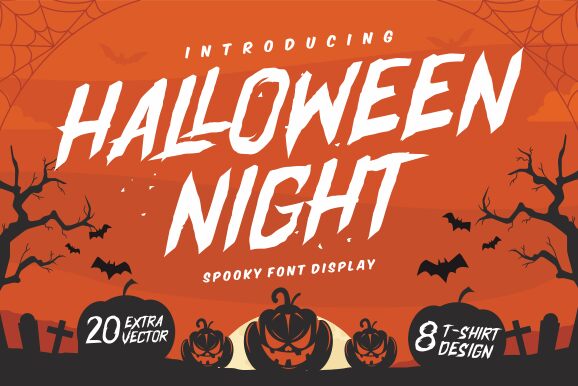
Halloween Night its a font for Halloween themes, (spooky, funny, scary )
for example design like Logo, headline, T-shirt design, poster movie, a book cover with a scary story
Presentazione e campione visivo del carattere Halloween Night
Halloween Night